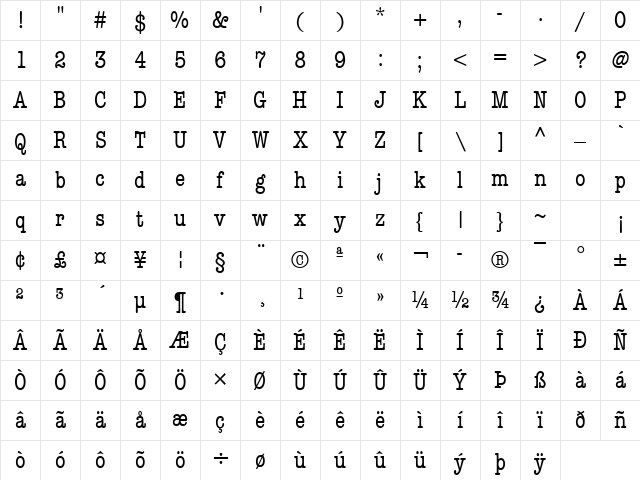
EditorCndn Regular
Design Context for EditorCndn
EditorCndn is a composed and adaptable typeface that performs quietly and consistently across a wide range of design contexts.